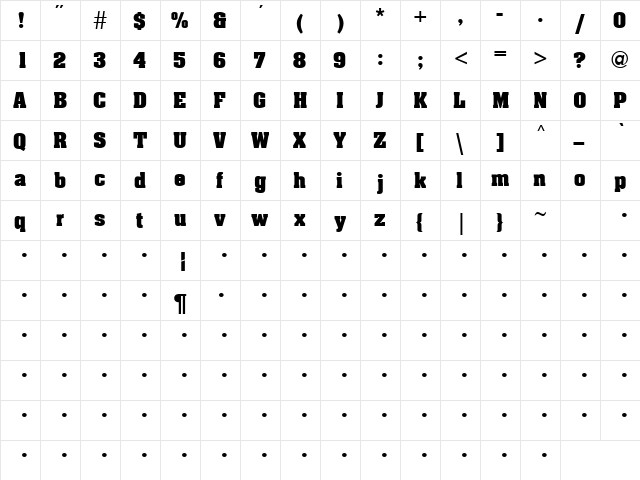
QTAtchen Regular
Design Context for QTAtchen Typeface
QTAtchen is a composed and adaptable typeface that performs quietly and consistently across a wide range of design contexts.